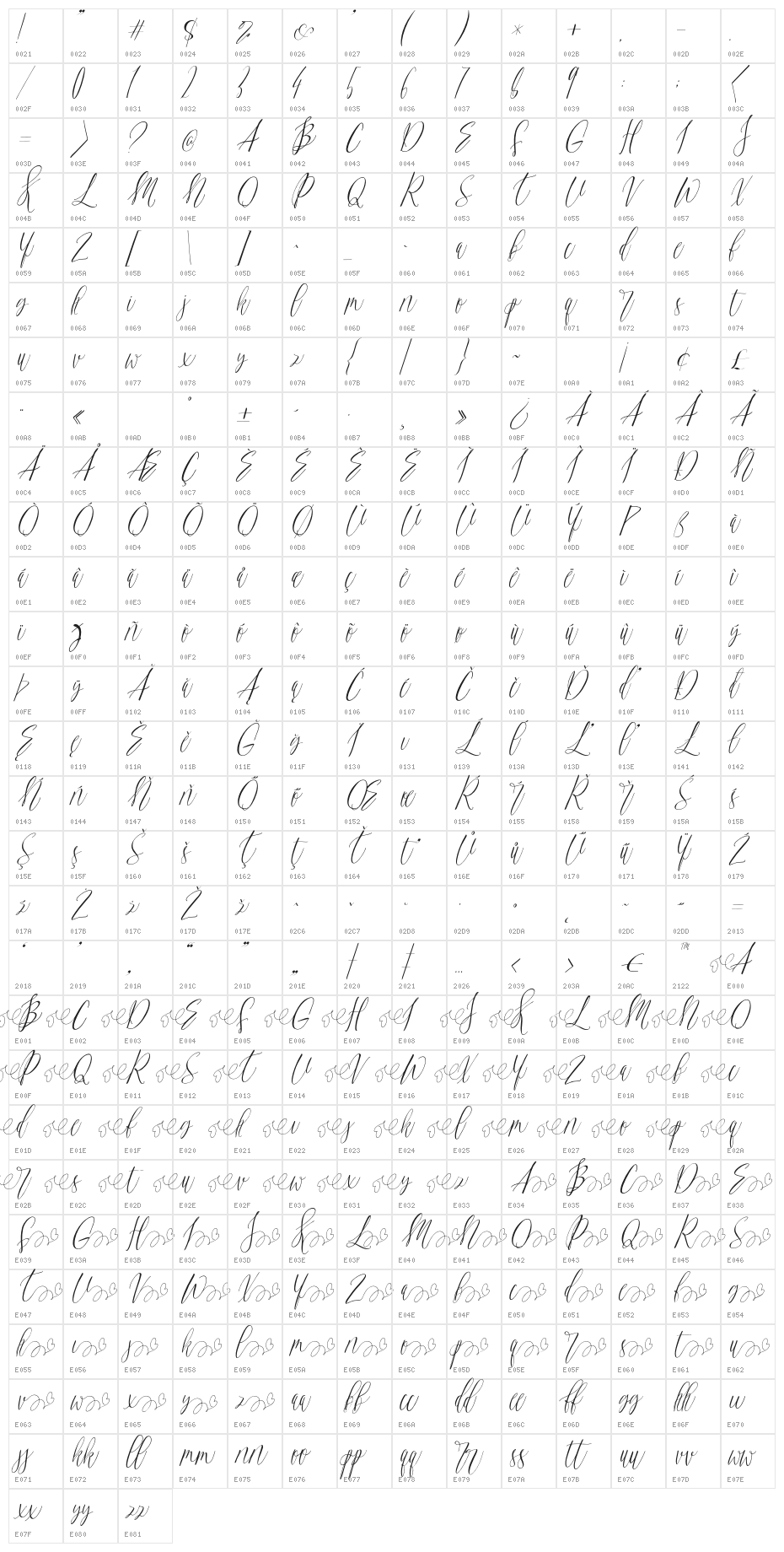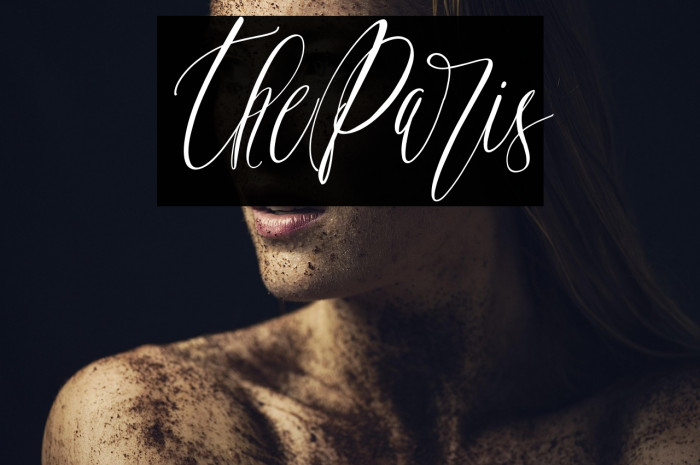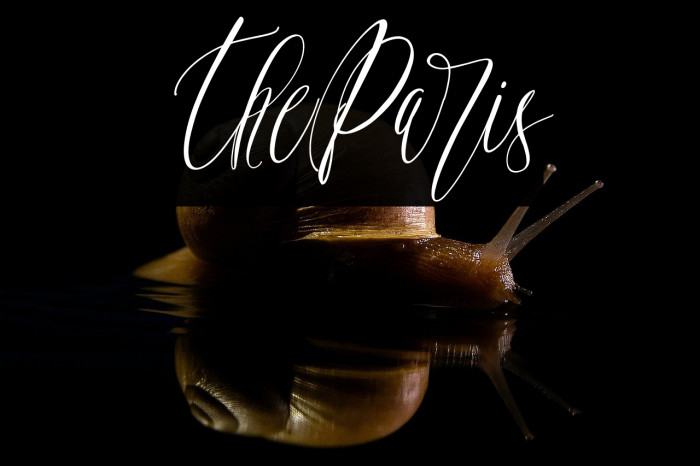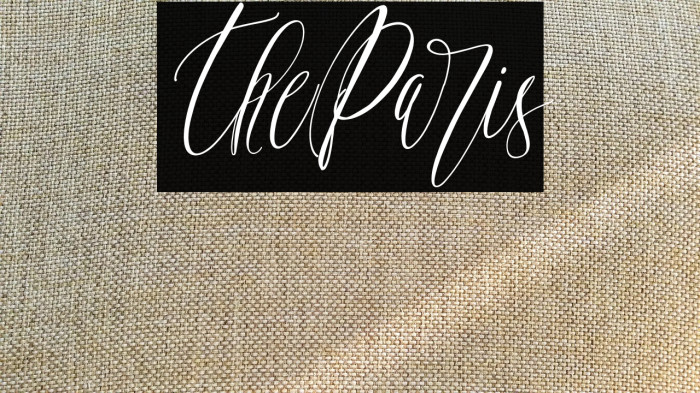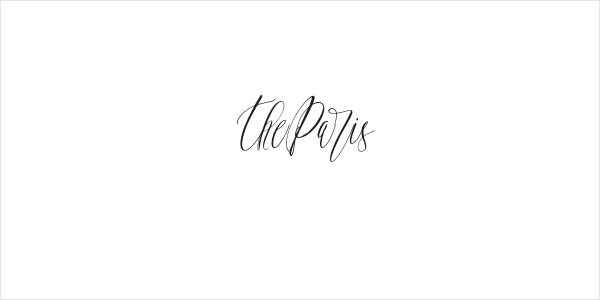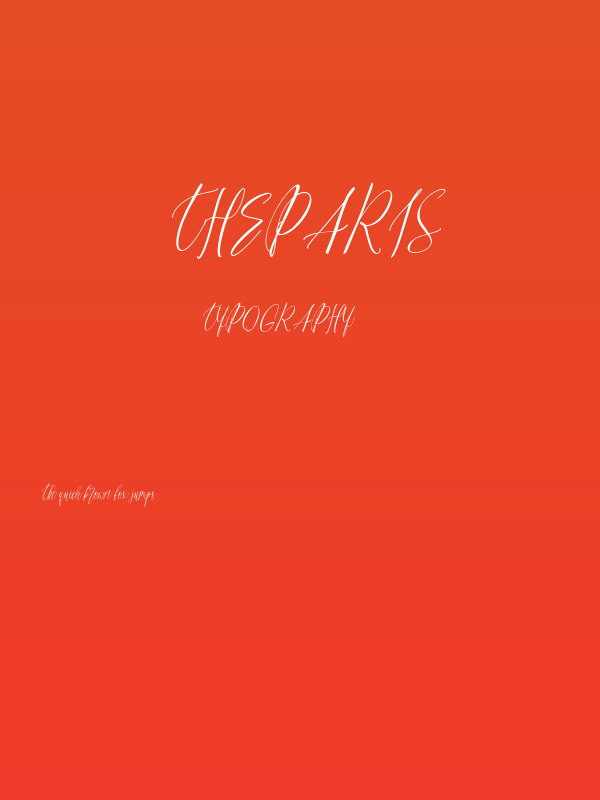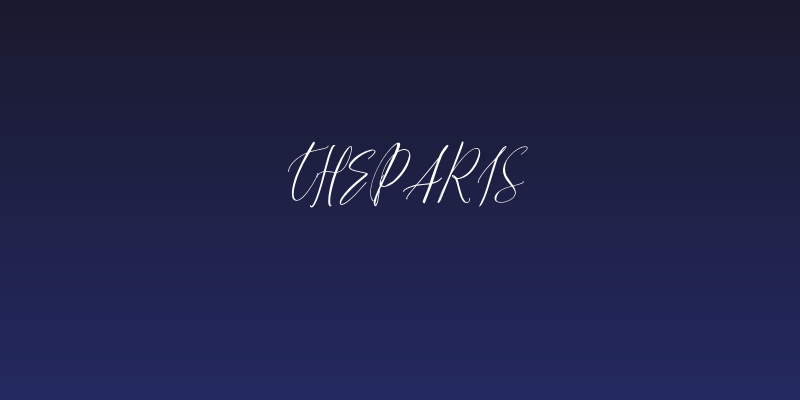
TheParis Font
TheParis Description
This elegant script font exudes a sense of sophistication and fluidity, characterized by its flowing, cursive strokes and delicate lines. The letters are intricately connected, creating a seamless and harmonious appearance. The uppercase letters are tall and graceful, while the lowercase letters maintain a consistent rhythm with their looping forms. The numbers and special characters are designed with the same attention to detail, ensuring a cohesive look across all elements. This font is ideal for projects that require a touch of elegance and style, such as wedding invitations, branding, and high-end product packaging.
| Overall Style | Elegant, Sophisticated |
| Proposed Projects | Wedding invitations, branding, high-end product packaging, elegant stationery. |